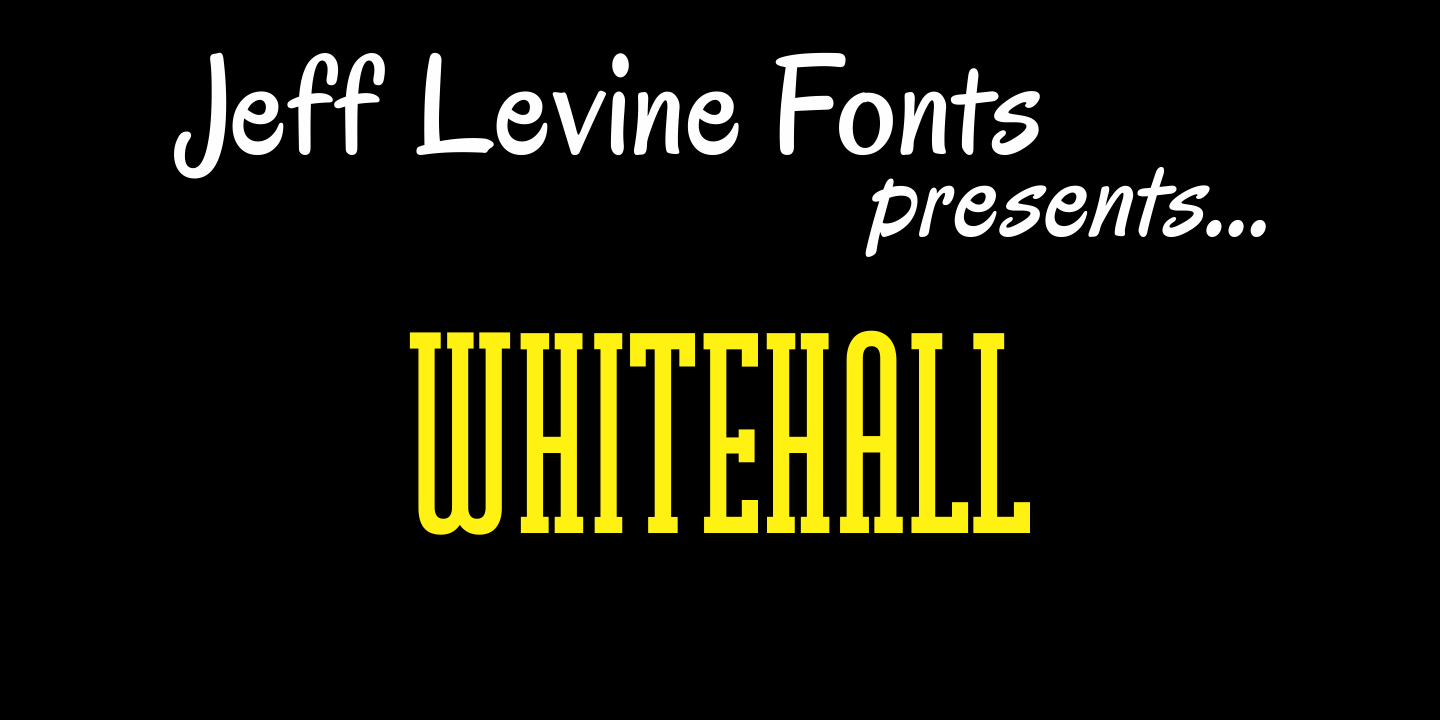
Whitehall
Whitehall JNL is the serif counterpart to Jeff Levine's Wingate JNL - both are strongly influenced by the Art Deco stylings of such condensed typefaces as Huxley Vertical and other narrow titling fonts.
Whitehall JNL Regular by Jeff Levine Fonts